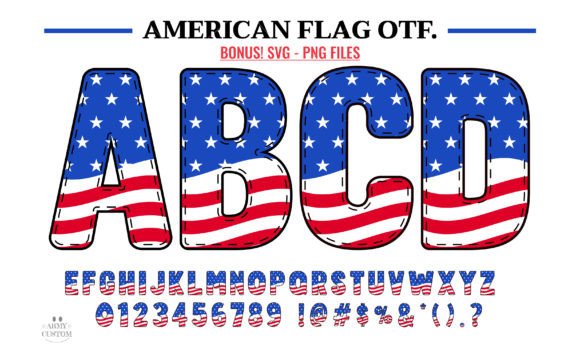
The American Flag Font: A Patriotic Design Essential
I’ll never forget the design project that led me to discover the American Flag Font. I was working on a Fourth of July-themed craft project for a client, and I was struggling to find the perfect font to capture the essence of American patriotism. The client wanted something that would make their project stand out, but I was coming up blank. That’s when I stumbled upon this amazing font, and it instantly brought the stars and stripes to life!
Drawing inspiration straight from the American flag, this typeface beautifully encapsulates the strong heritage and pride of America. It’s not just any font – it’s a testament to the enduring spirit of the nation. In this article, I’ll share my experience with the American Flag Font, its features, and how to make the most of it in your design projects.
- ✨ The font’s elaborate design adds an unmissable touch of American fervor to any project.
- ✅ It’s perfect for capturing the essence of nationalistic pride and heritage.
🤔 Another thing to keep in mind is that the font’s elaborate design may not be suitable for all types of projects. For example, it may not be the best choice for a minimalist design or a project that requires a more subtle font.
The American Flag Font was designed by a team of creatives who wanted to capture the essence of American patriotism in a unique and beautiful way. The font’s design is inspired by the stars and stripes of the American flag, with intricate details and bold lines that evoke a sense of national pride.
The designer’s goal was to create a font that would be a testament to the enduring spirit of America, and I think they’ve succeeded. The font is perfect for designers, crafters, and creative hobbyists who want to add a touch of patriotism to their projects.
Q: What is the American Flag Font?
A: The American Flag Font is a typeface that draws inspiration from the stars and stripes of the American flag. It’s a patriotic font that’s perfect for designs that require a bold and edgy look.